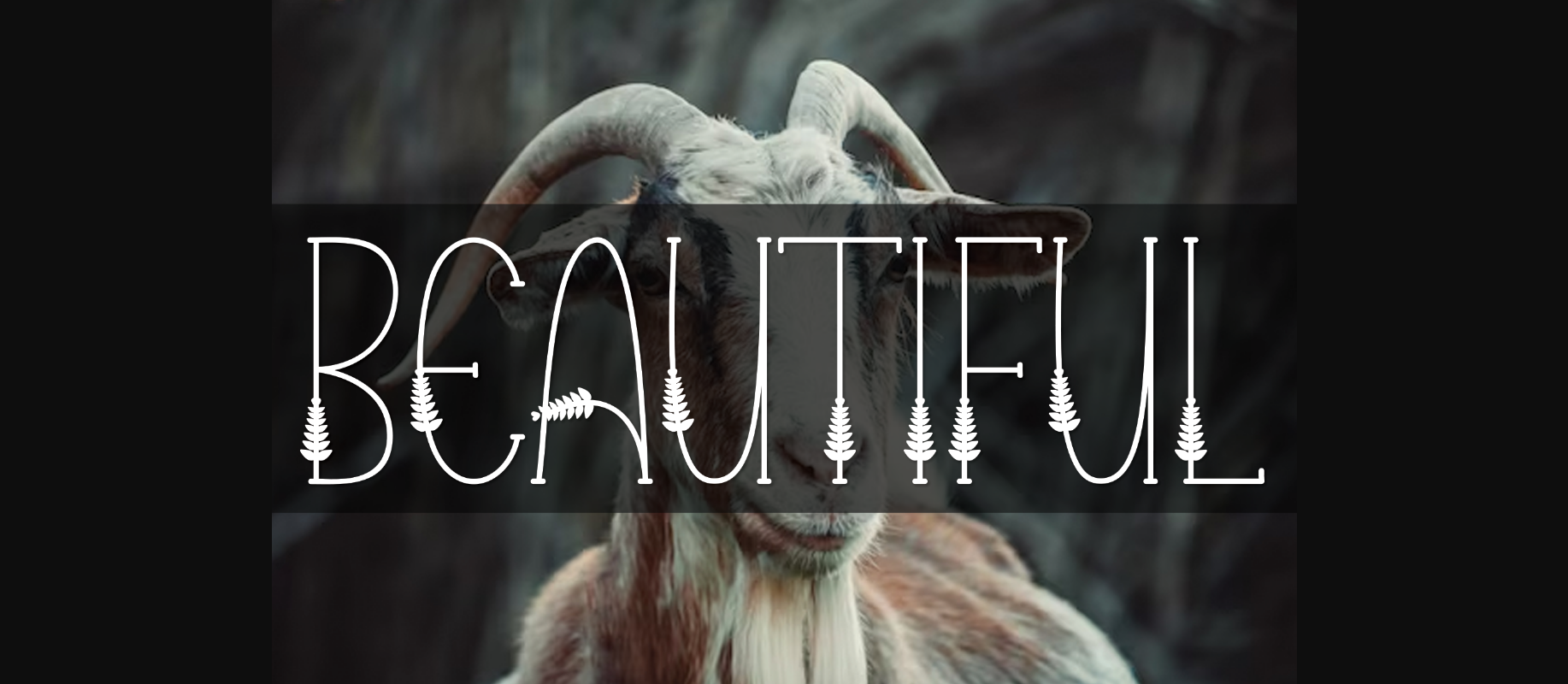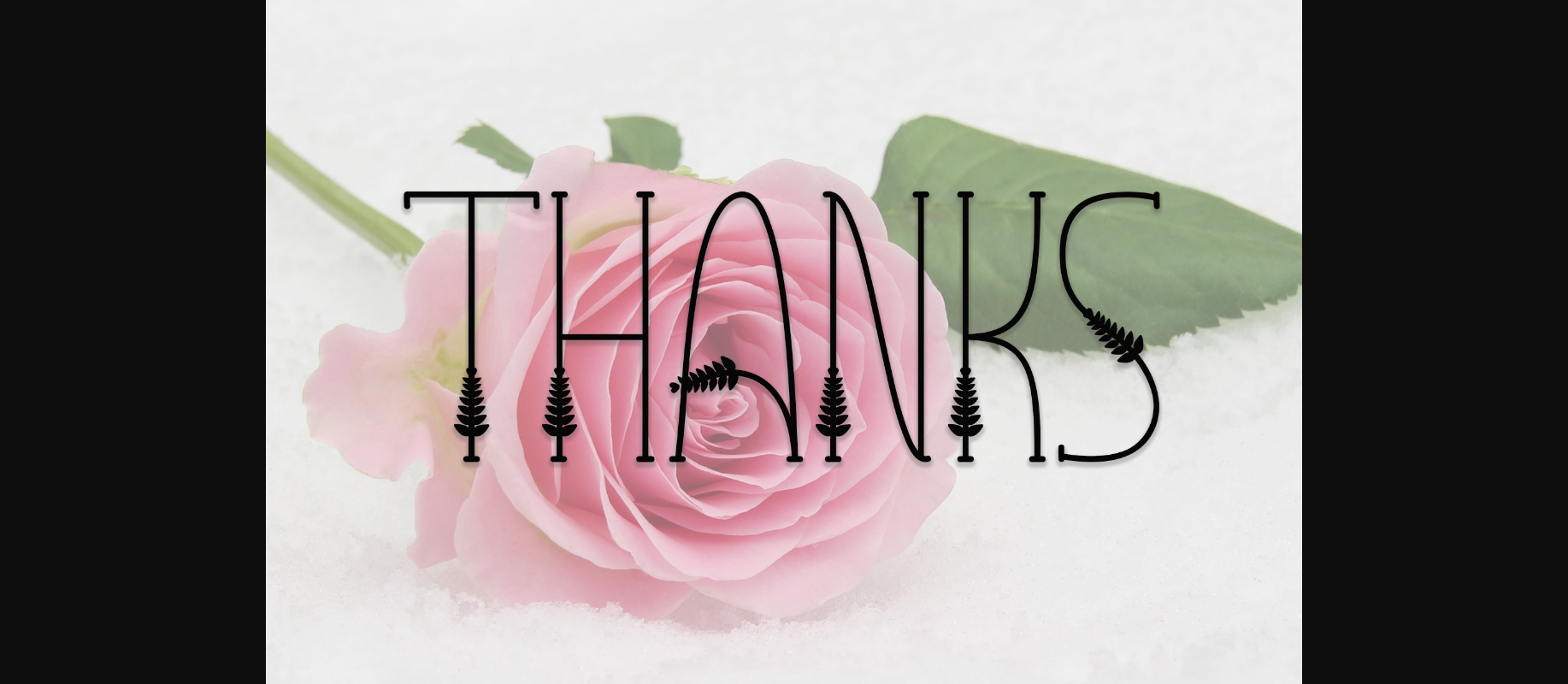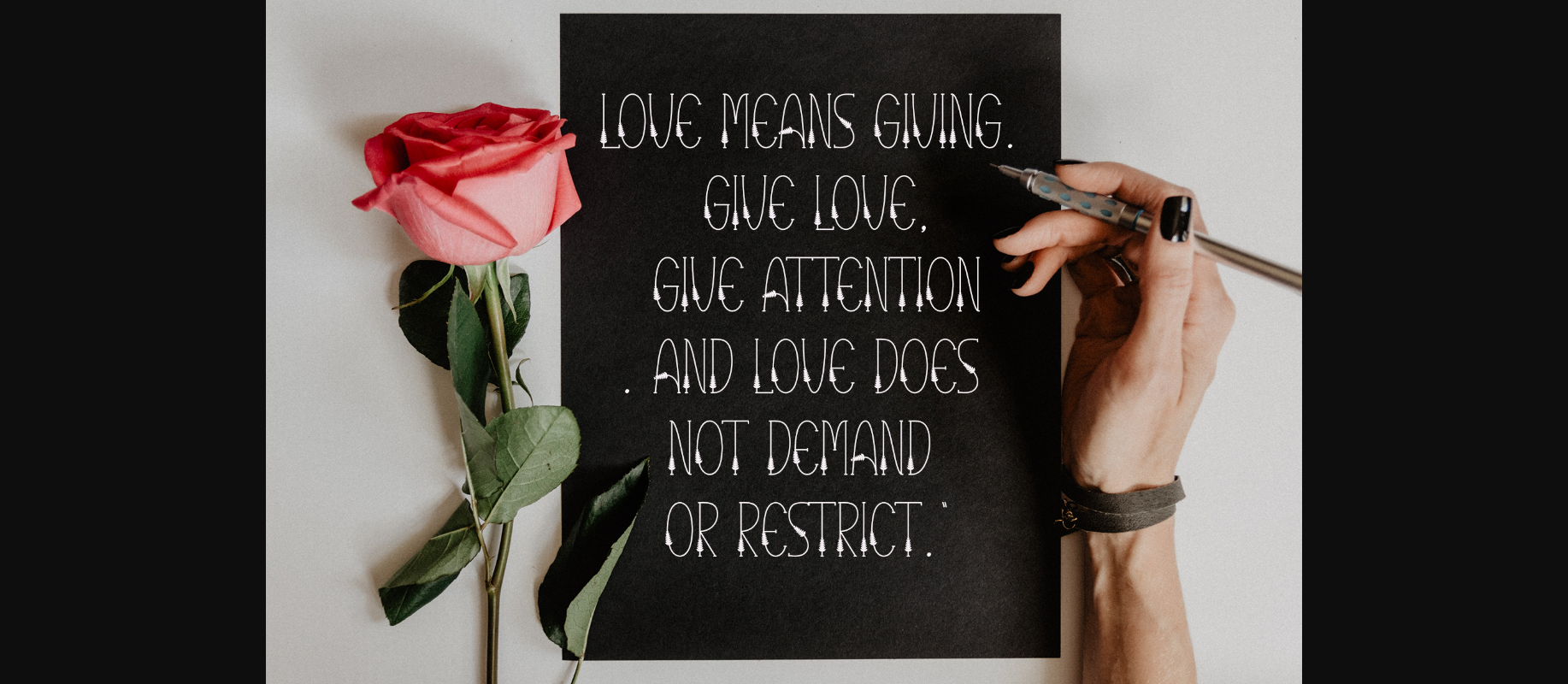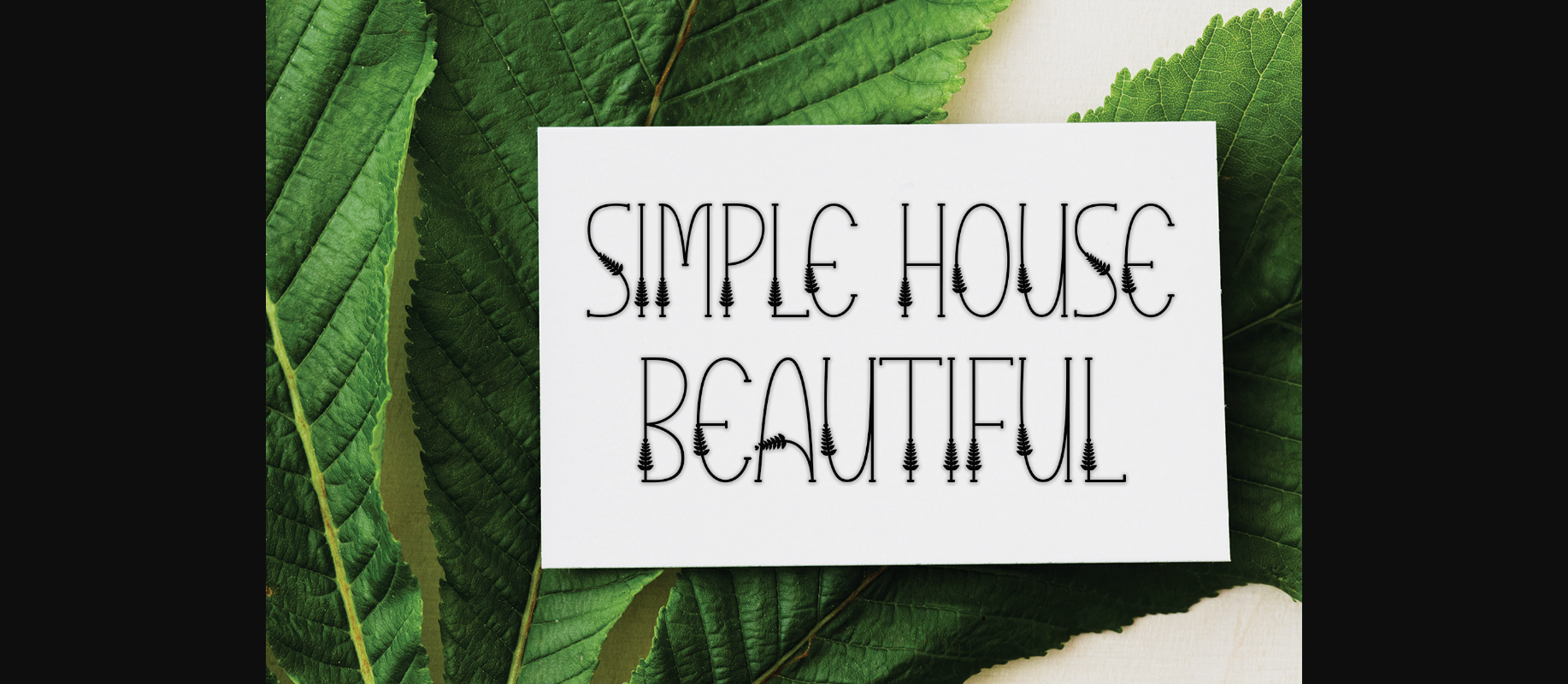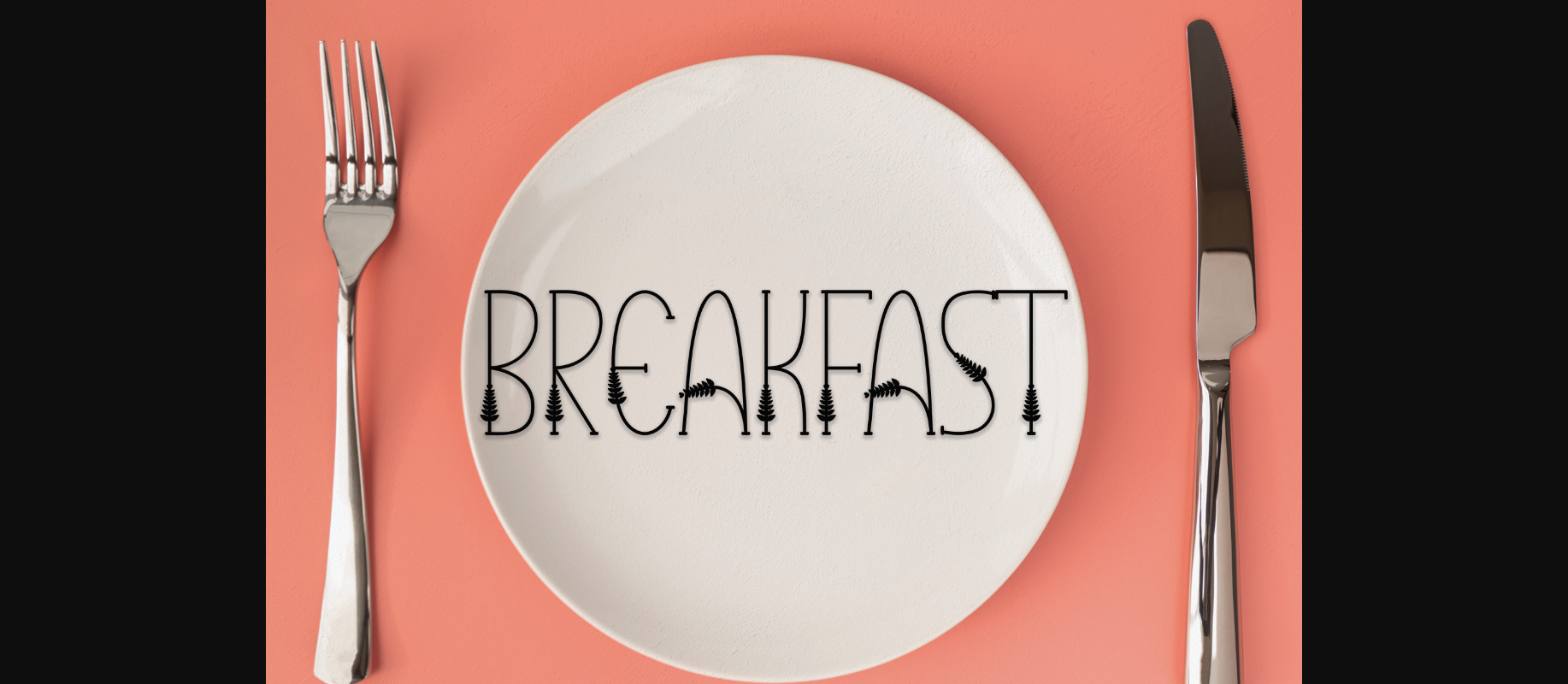
Beautiful Font
About Beautiful Font
Beautiful is a sweet and friendly handwritten decorative font. Fresh and neat, this font is ideal for writing wedding invitations, cards, or any other design that might need a fun touch!